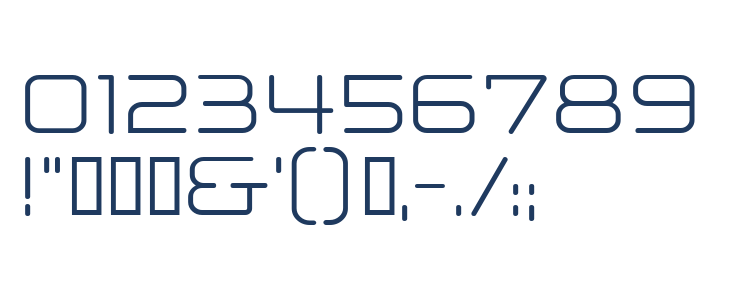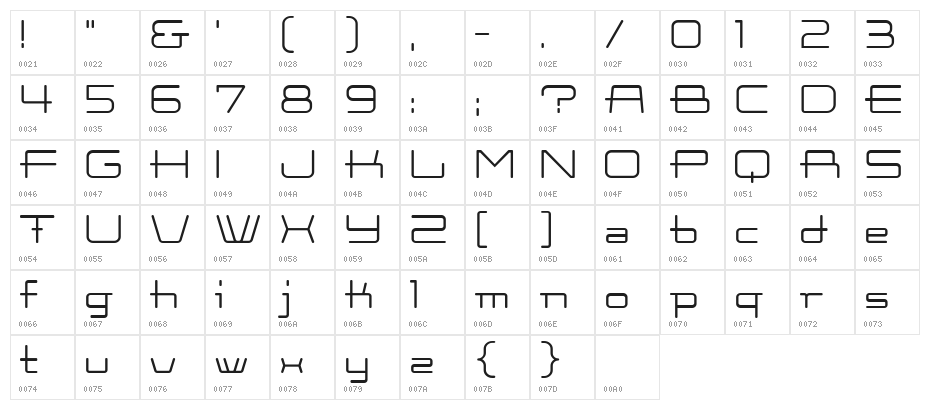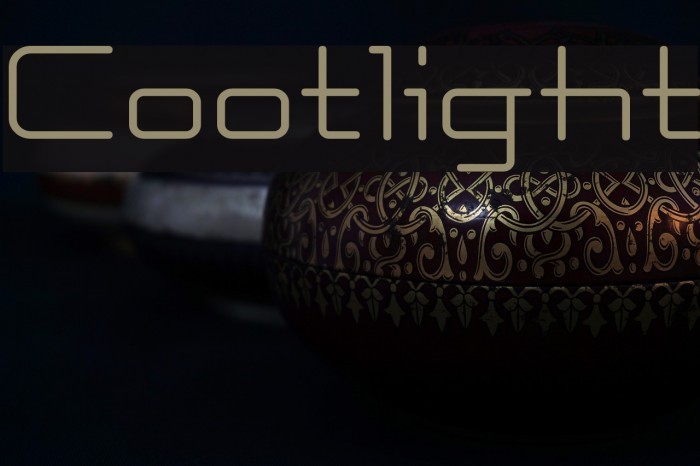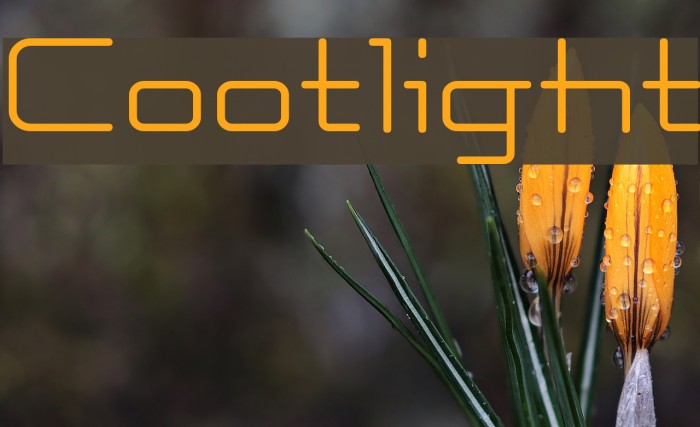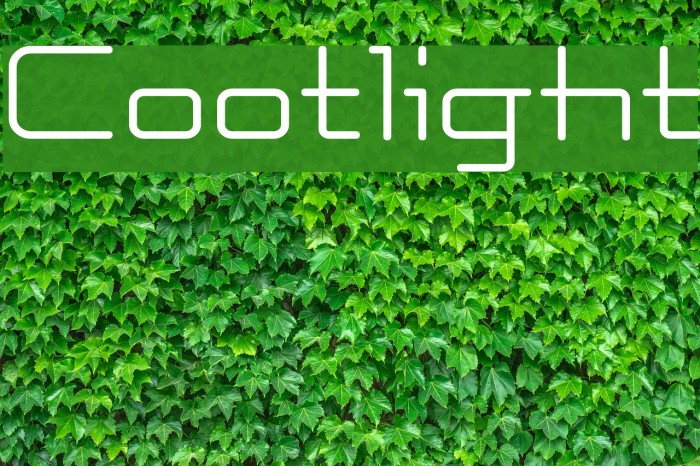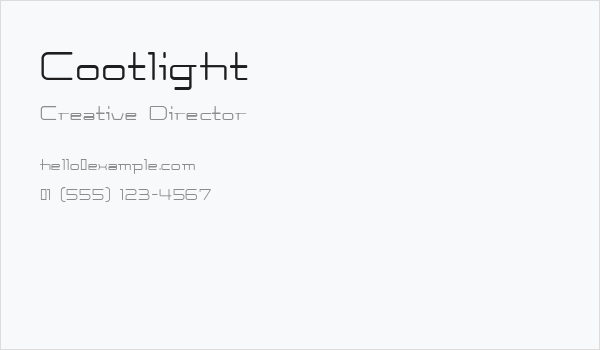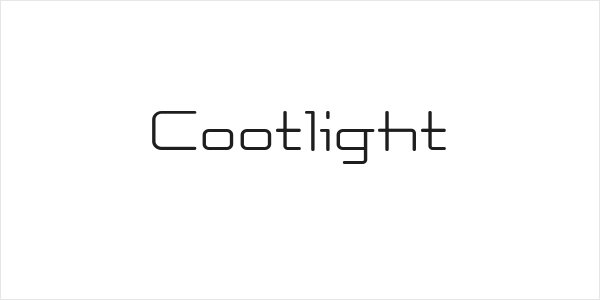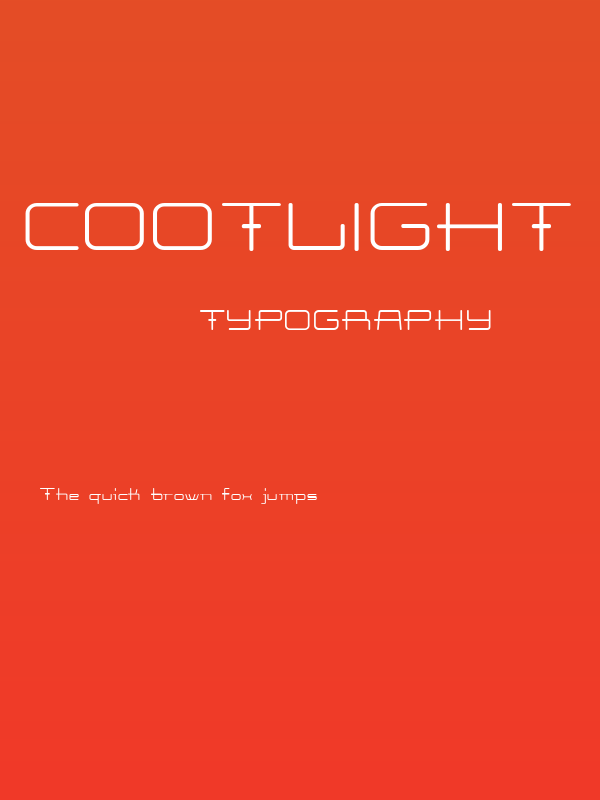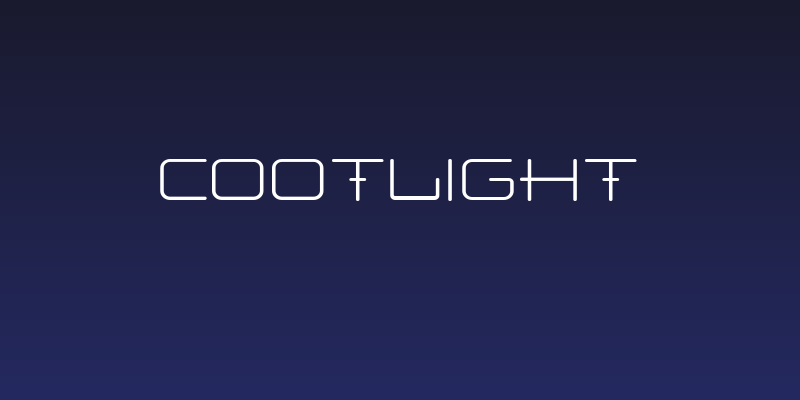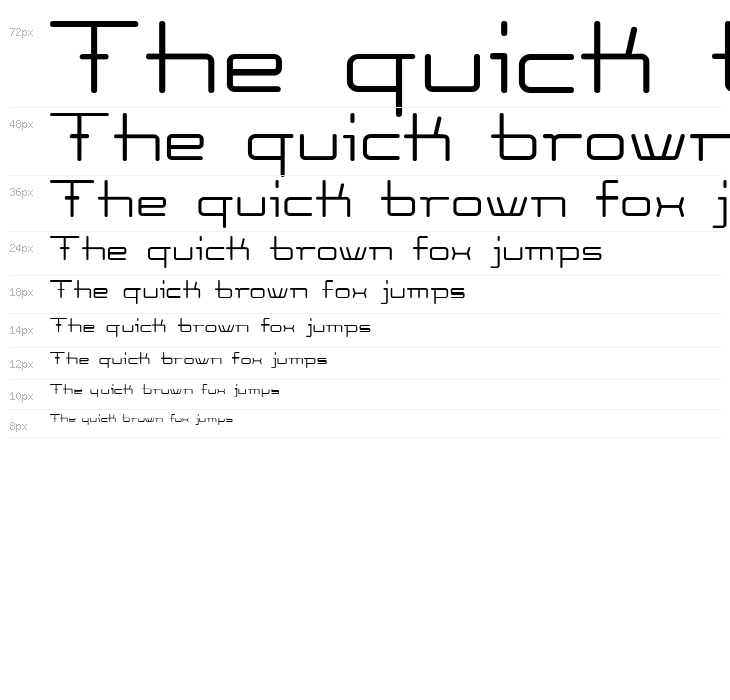
This font features a modern, geometric design with a clean and minimalistic aesthetic. The characters are constructed with consistent line thickness, creating a uniform appearance across both uppercase and lowercase letters. The rounded edges and open counters give it a friendly and approachable feel. The numerals and special characters maintain the same geometric style, ensuring visual harmony throughout. Its simplicity and clarity make it highly legible, even at smaller sizes, while the unique character shapes add a touch of personality.